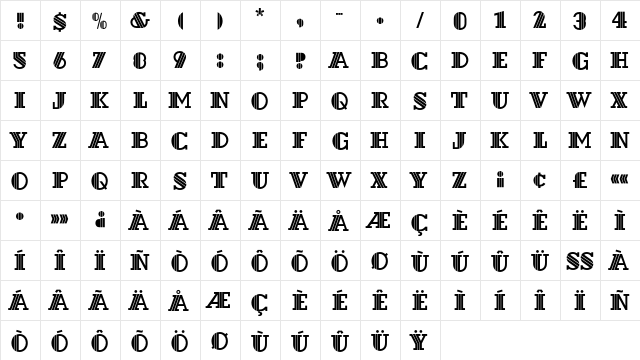
DextorEF Regular
Design Context for DextorEF Typeface
DextorEF is a composed and adaptable typeface that performs quietly and consistently across a wide range of design contexts.